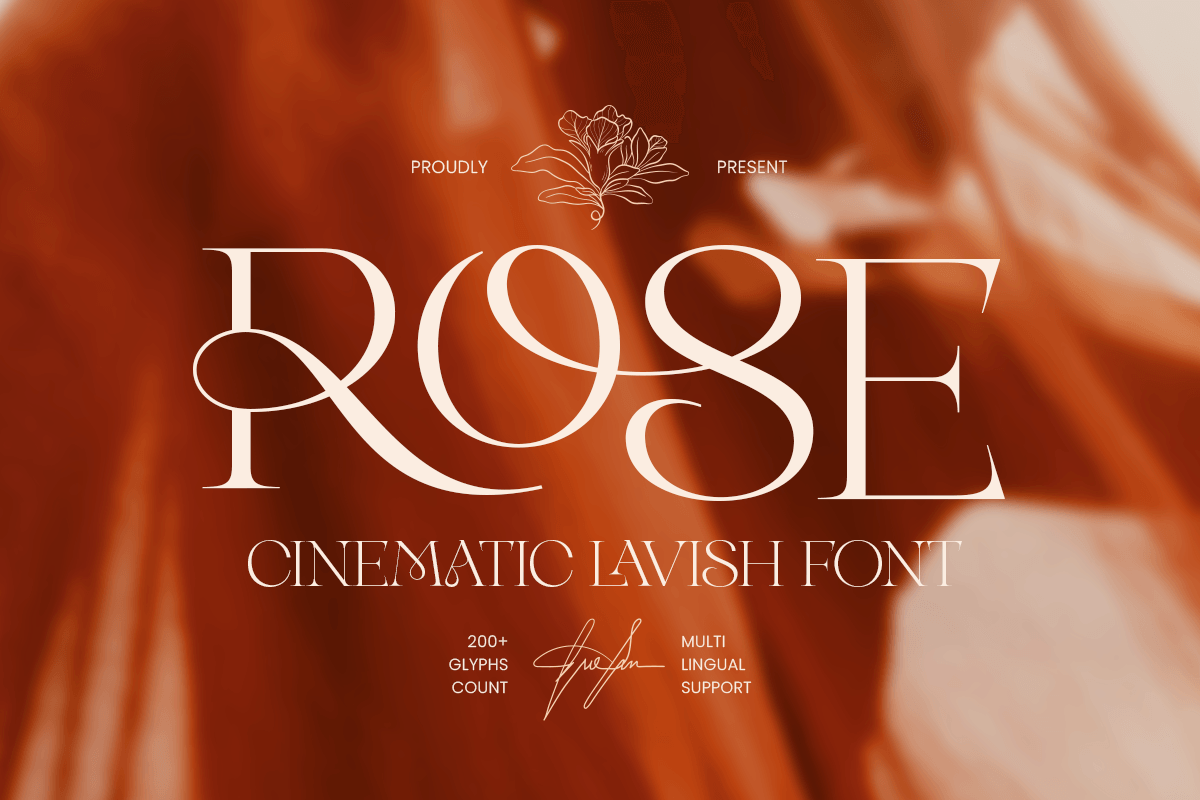
Rose
-Cinematic Lavish FontRose – Cinematic Lavish Font
ROSE is a cinematic lavish font crafted to deliver a bold, elegant, and high-end atmosphere. With refined shapes and a dramatic display presence, this typeface brings a premium tone that feels glamorous, confident, and ready for big-screen typography.
Designed for cinematic titles and luxury branding, ROSE works beautifully across movie posters, film credits, trailer graphics, editorial headlines, high-end packaging, and premium social media campaigns. Its lavish character makes it ideal for fashion, beauty, fragrance, jewelry, and boutique identities that need typography with impact and sophistication.
Whether you’re building a cinematic poster, a premium brand identity, or a dramatic headline system, ROSE gives your design a lavish finish that feels polished in both digital and print layouts.
Inspiration Behind ROSE
ROSE is inspired by the elegance of classic cinema and the prestige of luxury branding. The design blends dramatic title-card energy with modern refinement—made to create a glamorous, premium impression for posters, editorials, and brand identities.
ROSE Font Features
Cinematic display letterforms with a lavish, premium tone
Strong impact for titles, headlines, and brand statements
Clean readability for posters, editorials, and promotional design
OpenType features for refined typography control
Movie posters, cinematic titles, and trailer graphics
Luxury branding and premium logo design
Fashion, beauty, fragrance, and jewelry packaging
Editorial headlines and magazine covers
Social media promos, banners, and high-end campaigns
Give your visuals a big-screen luxury finish with ROSE - crafted for cinematic glamour and lavish branding impact. 🎬✨